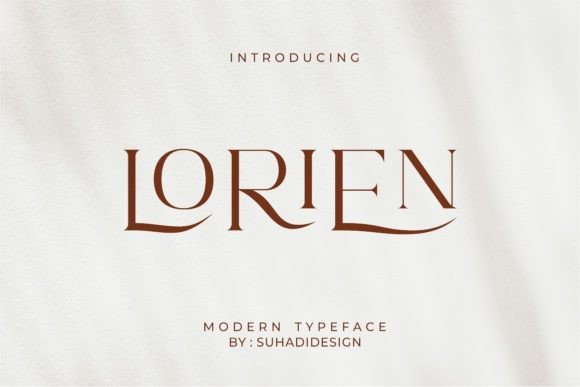
Behold Lorien, a font family that embodies sophistication, charm, and a sprinkle of fashionable flair. Designed to elevate your creative projects, Lorien is meticulously crafted with each stroke, curve, and serif bearing a touch of elegance and grace.
From the moment you lay your eyes on Lorien, you'll be captivated by its ability to evoke emotions and exude an air of luxury. Whether you're working on a wedding invitation, a branding design, or crafting personal stationery, Lorien will add a timeless and alluring touch to your creations.
Unlike ordinary fonts, Lorien's delicate flourishes and thoughtfully executed details breathe life into your projects. Its PUA encoding allows you to effortlessly access and utilize the complete glyphs and ligatures, giving you the freedom to explore endless design possibilities.
Immerse yourself in the world of Lorien, where beauty and functionality coexist harmoniously. Let this font be your brush, painting tales of elegance, femininity, and modern chic. Elevate your designs to new heights and experience the transformative power of Lorien.